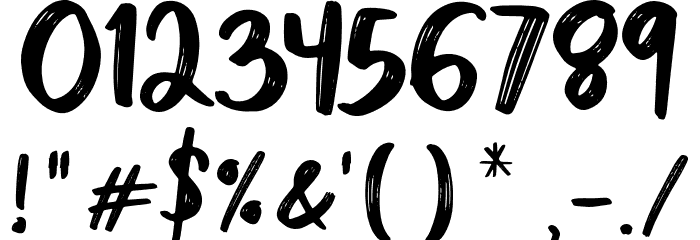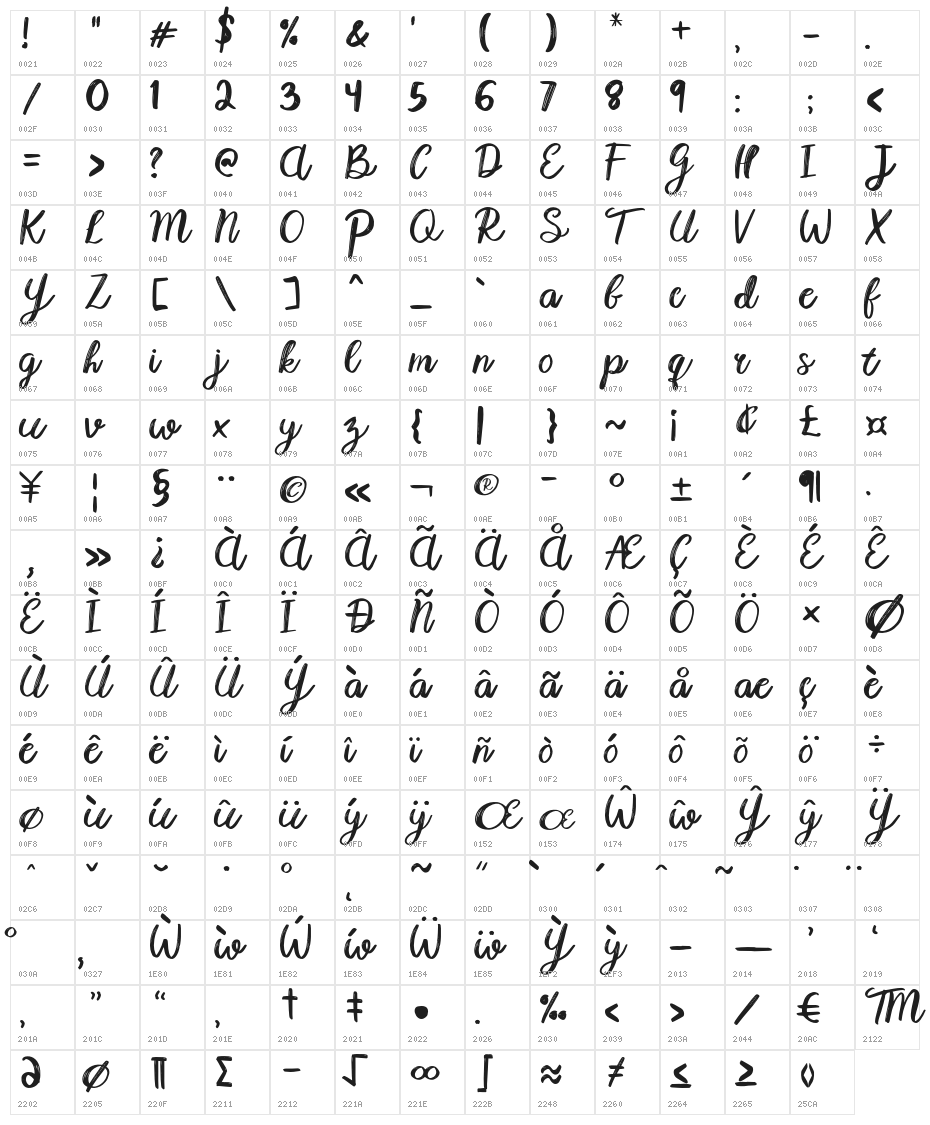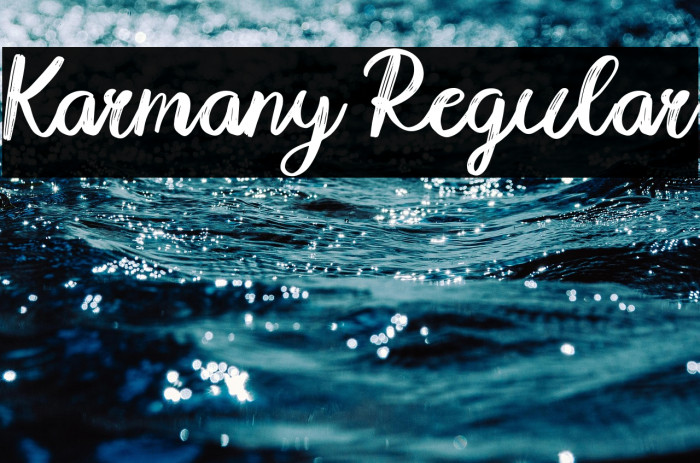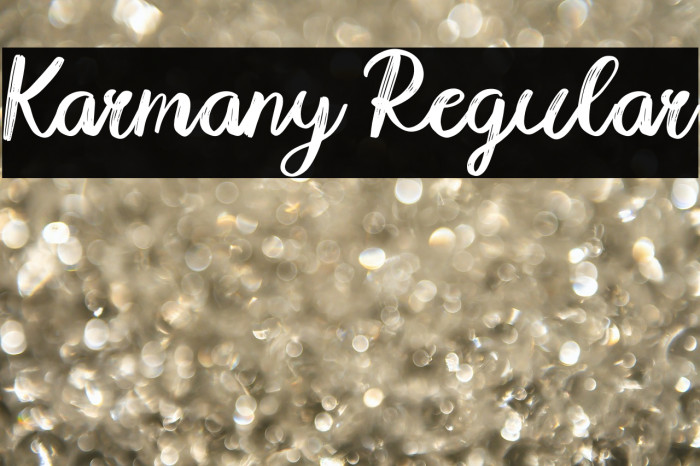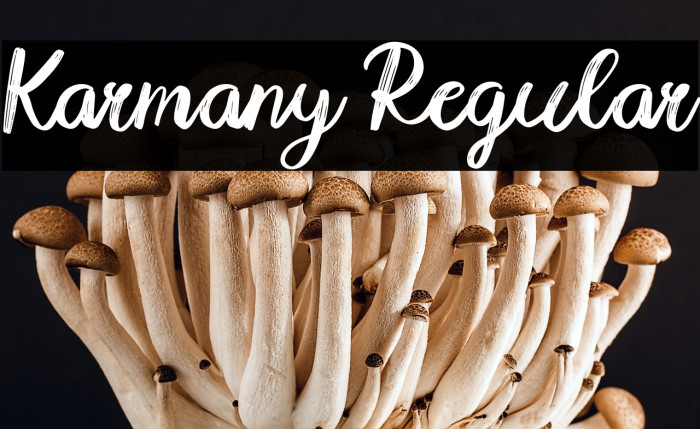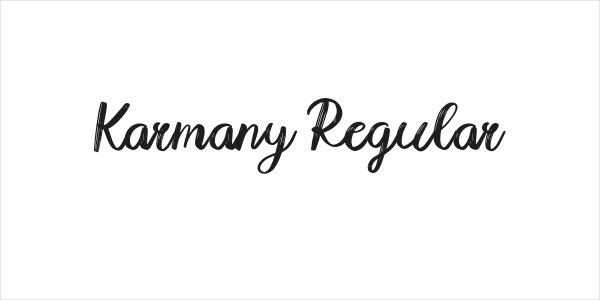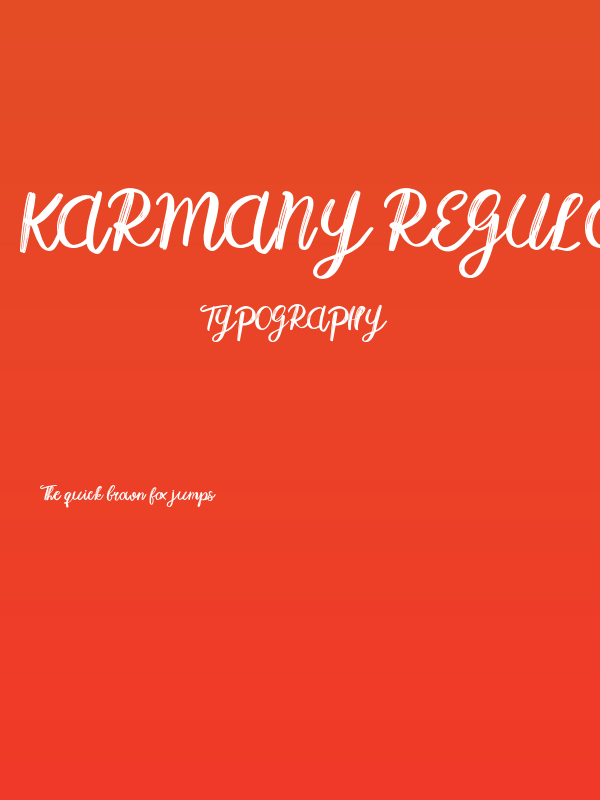
Karmany Regular Font
Karmany Regular Description
This font features a lively and dynamic script style, characterized by its fluid, cursive strokes and bold presence. The uppercase letters exhibit a playful yet elegant flair, with sweeping curves and a sense of movement. The lowercase letters maintain this fluidity, offering a harmonious blend of loops and swashes that create a cohesive and visually appealing set. The numerals are bold and consistent with the overall style, ensuring readability while maintaining the font's artistic charm. Special characters are thoughtfully designed to complement the letterforms, adding versatility to the font's application. This font's energetic and expressive nature makes it ideal for projects that require a personal touch or a sense of creativity.